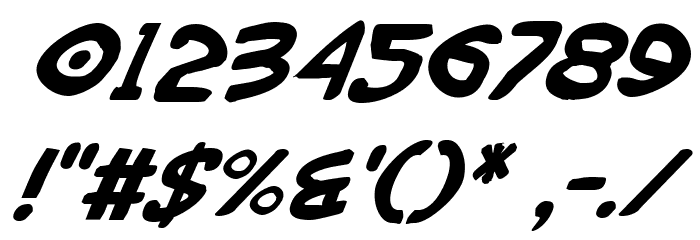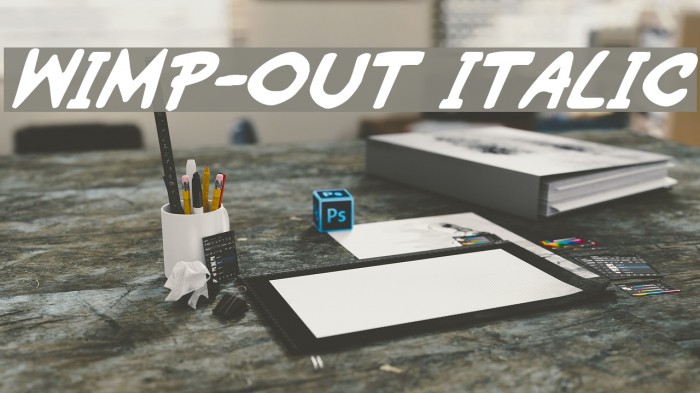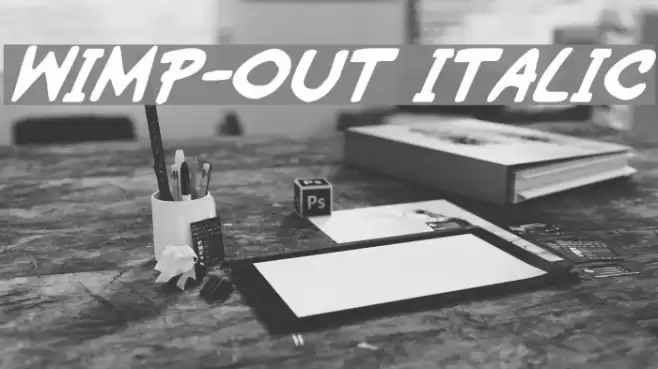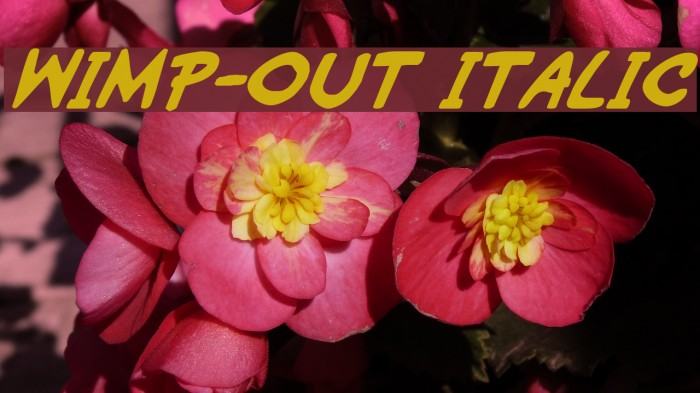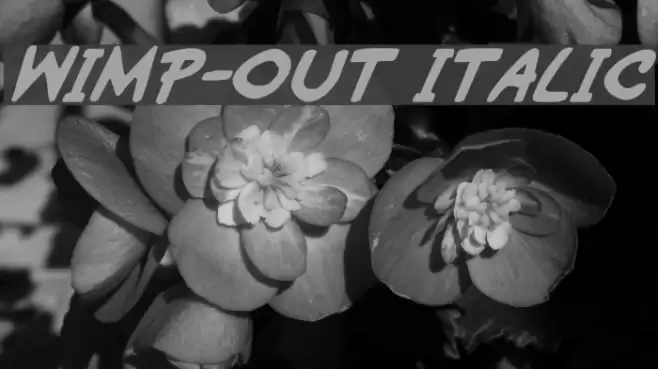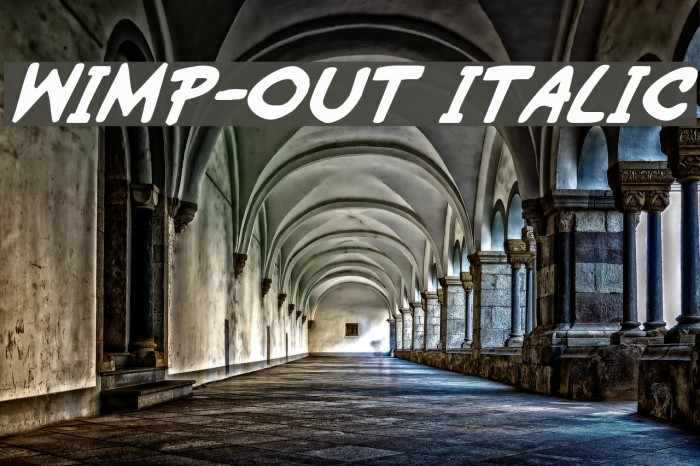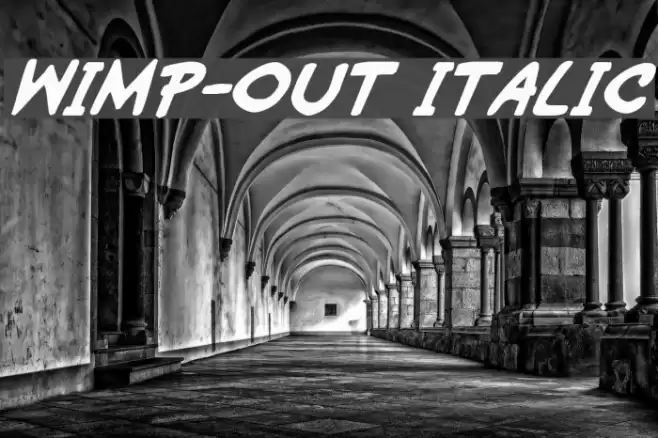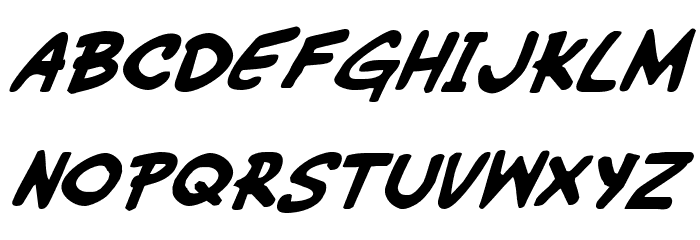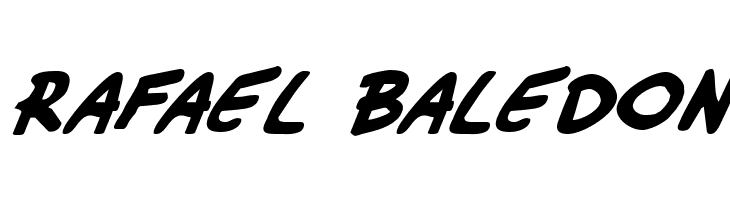
Wimp-Out Italic Font
Wimp-Out Italic Description
This font features a bold and dynamic style with a playful, handwritten appearance. The letters are slightly slanted, giving it an italicized look that adds a sense of motion and energy. The strokes are thick and consistent, providing a strong visual impact. The characters are well-spaced, ensuring readability while maintaining a cohesive flow. The font includes a full set of uppercase and lowercase letters, numbers, and a variety of special characters, making it versatile for different design needs. Its unique style is both modern and expressive, suitable for projects that require a personal touch.
| Use Case | Logos, Headlines, Posters |
| Proposed Projects | Ideal for creative projects such as posters, logos, branding, and social media graphics where a personal and energetic touch is desired. |